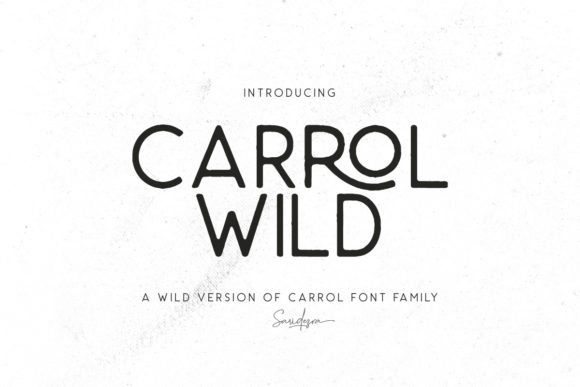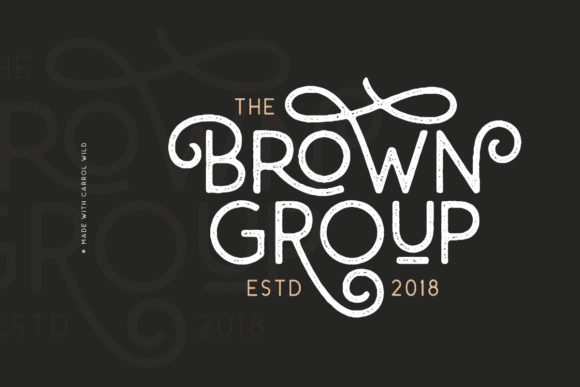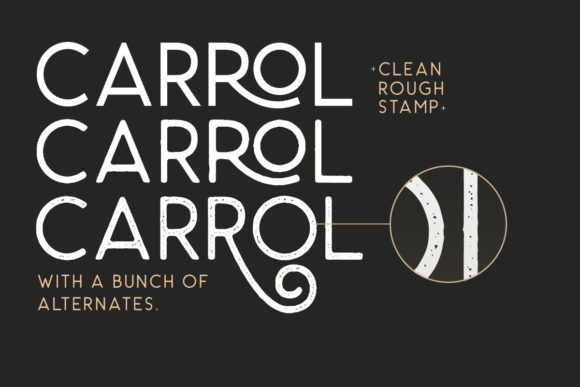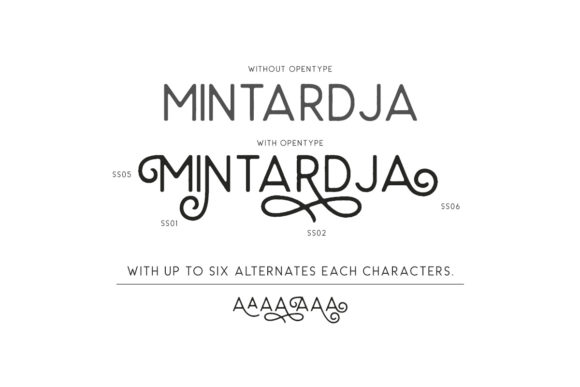
Carrol Wild Font: Unique Sans Serif with Alternates for Logo Design
About the Carrol Wild Font
From logos to headlines, the Carrol Wild Font is the perfect choice for making a lasting impression. The Carrol Wild is a wild and modern sans with a bunch of alternates. Every alphabet has alternates up to 6 kinds!
It can be used for logos, quotes, or become a pairing in any script font.
Carrol Wild Font Usage Examples
Carrol Wild Font Example